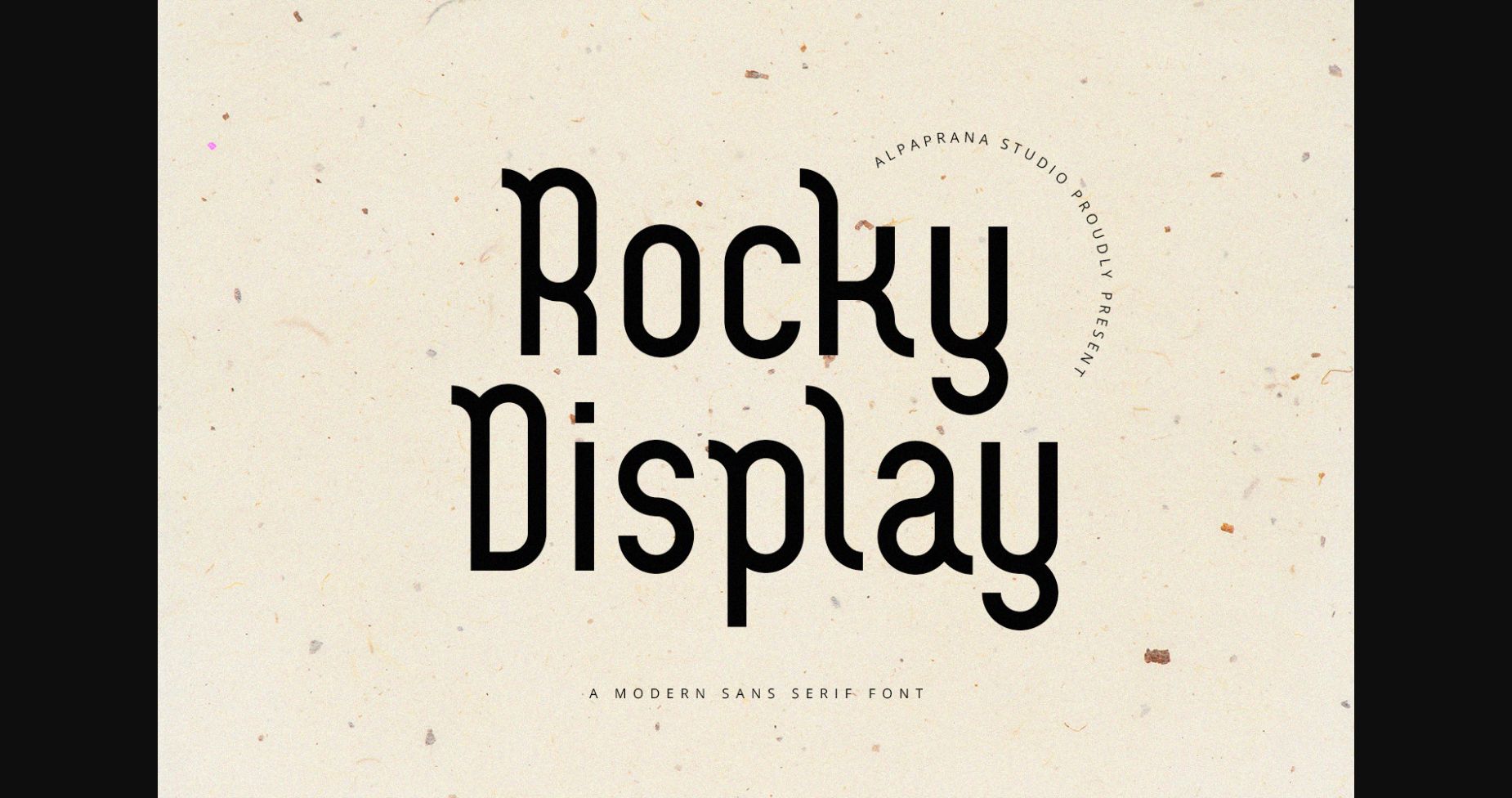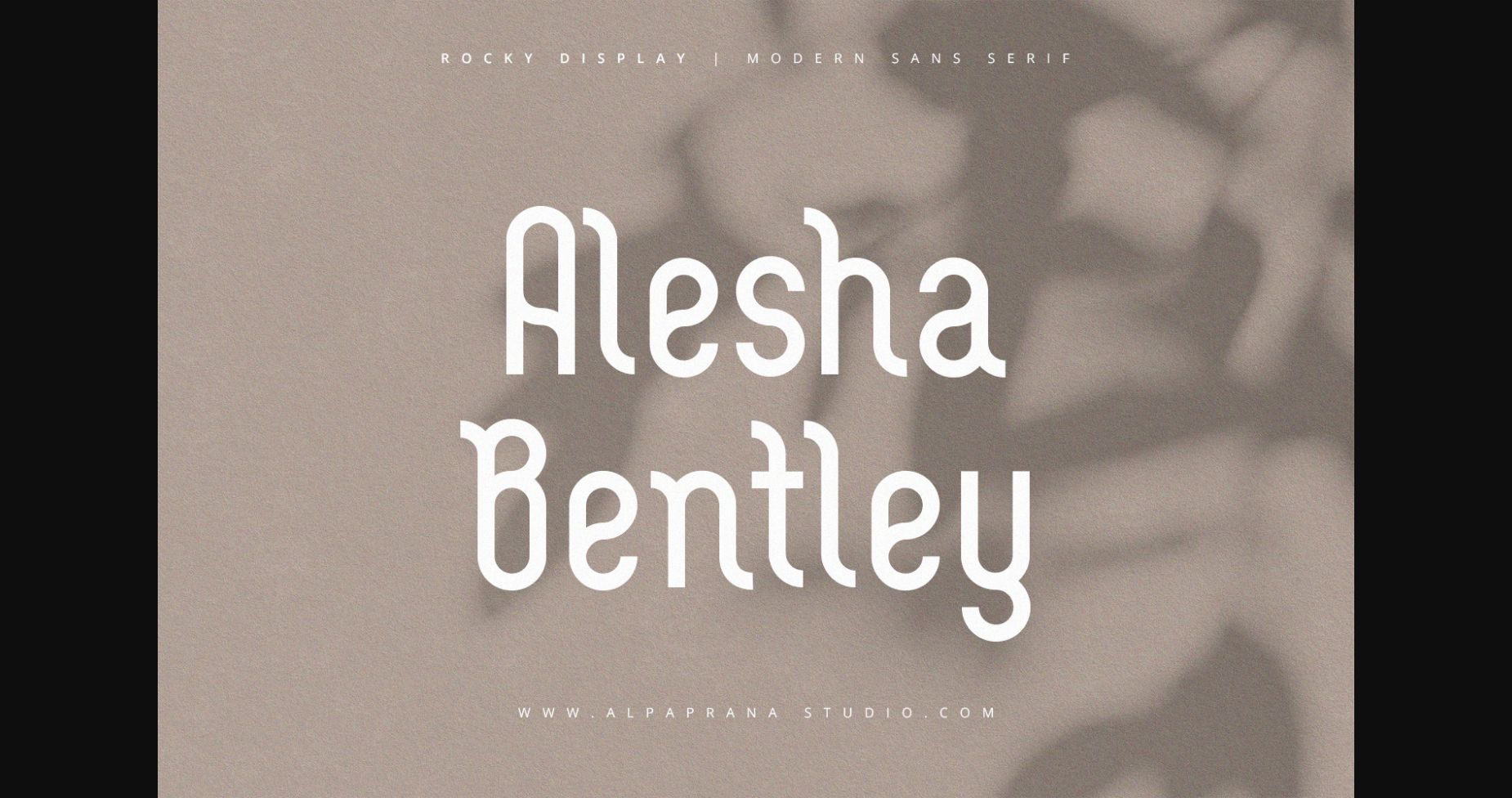
About Rocky Display Font
Rocky Display is a modern sans serif font with a natural and casual feel. Contemporary and fresh, it is perfect for any design you wish to create. Add it to your creative projects and make them outstanding!